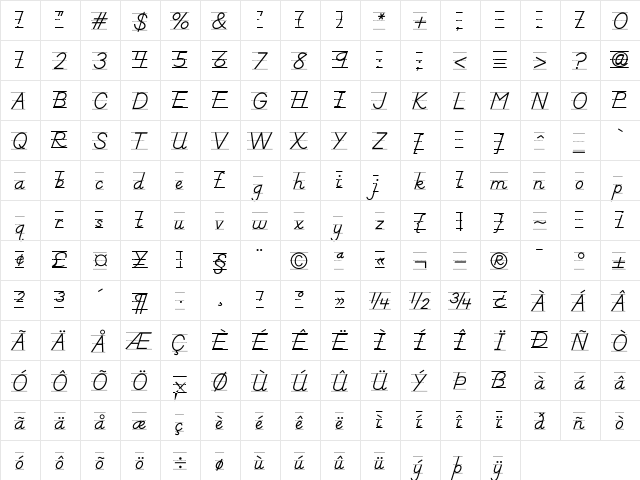
DnealianManuscriptLined Regular
Design Context for DnealianManuscriptLined Typeface
DnealianManuscriptLined flows with the natural rhythm of handwritten lettering, making it ideal for designs that call for warmth and personal expression.
Font Pairing: Combine DnealianManuscriptLined with a simple geometric sans for maximum contrast — the tension between flowing curves and clean structure is a classic typographic pairing.
Pro Tip: Use DnealianManuscriptLined for short runs of text — names, titles, or taglines. Extended body copy in script faces tires the eye quickly.